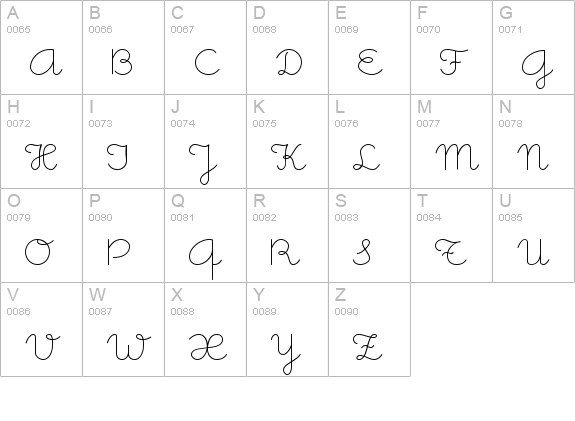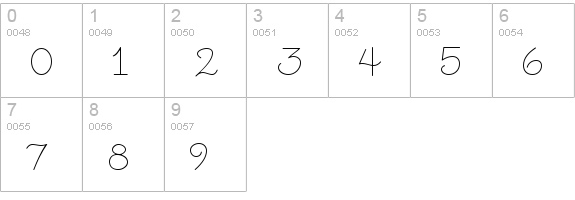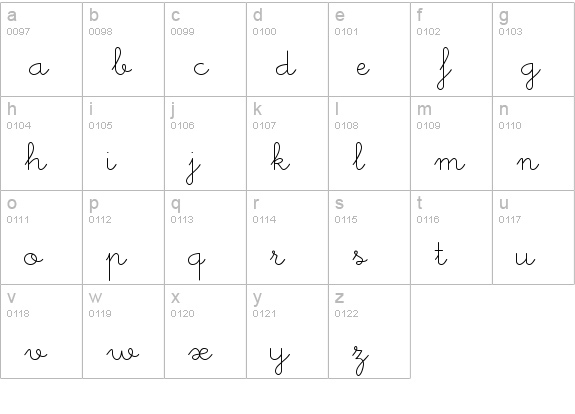
Little Days Font Details
Little Days font is a whimsical and playful typeface that will bring a touch of charm to any design project. Its unique combination of rounded edges and slightly exaggerated letterforms create a sense of childlike innocence and joy. Whether you're designing a children's book, a birthday invitation, or a cheerful logo, Little Days font is the perfect choice to add a sense of fun and delight. This delightful font is not only visually appealing but also highly versatile. It can be used for both display and body text, making it suitable for a wide range of projects. Its legibility ensures that your message will be easily understood, while its stylish and lively appearance adds a touch of personality to your design. What's even more exciting is that Little Days font is available for free download at FontsMarket.com. We believe that great design should be accessible to everyone, so we are thrilled to offer this charming font at no cost. Whether you're a professional designer or a hobbyist, you can now enjoy the beauty and creativity of Little Days font without breaking the bank. So why wait? Download Little Days font today and let your imagination run wild. Whether you're creating a poster, designing a website, or crafting a greeting card, this font will bring a sense of whimsy and joy to your project. Don't miss out on this opportunity to elevate your design with this free and delightful font. Head over to FontsMarket.com now and start exploring the endless possibilities of Little Days font.